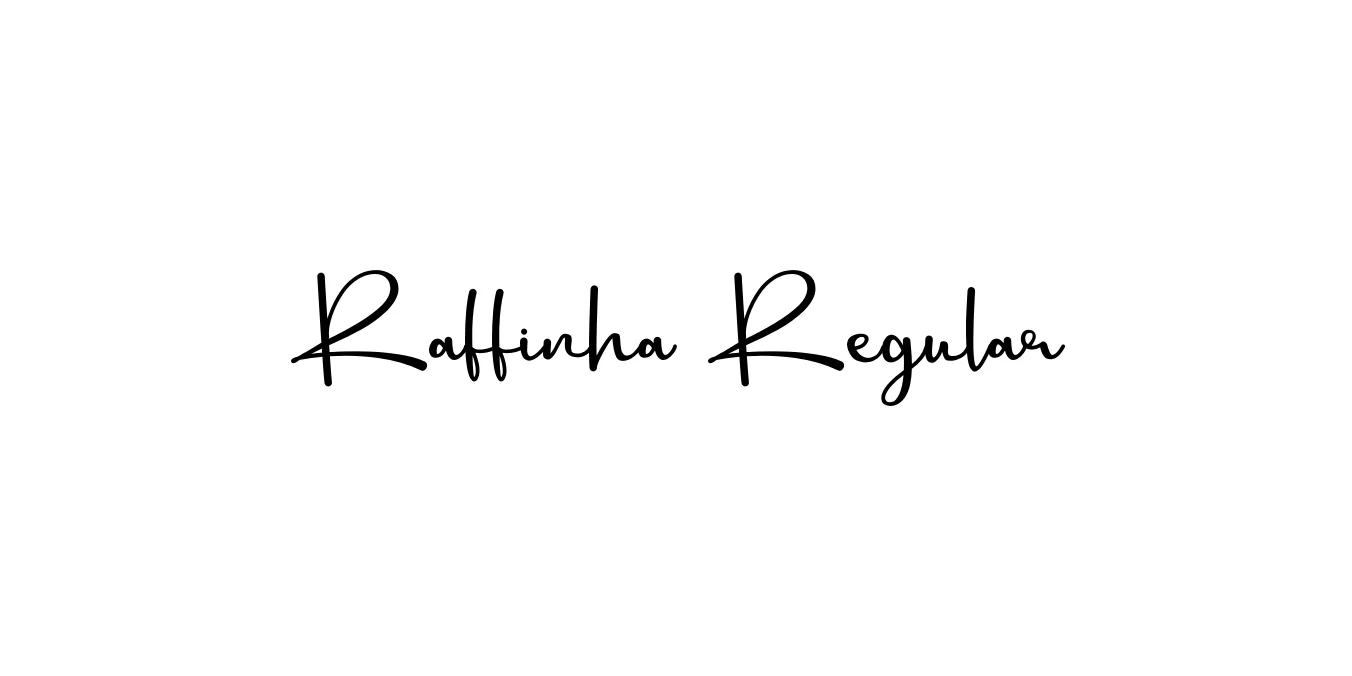
Raffinha Regular
Raffinha Regular is a sophisticated and fluid script typeface designed by the prolific type designer Mans Greback. Characterized by its elegant, sweeping strokes and organic flow, the font captures the essence of modern calligraphy. It was crafted to provide a sense of high-end craftsmanship and personal touch, making it a standout choice for projects that require a signature aesthetic or a humanistic feel.
The typeface features a delicate balance between casual handwriting and formal script, allowing it to remain highly legible while maintaining an artistic flair. Since its introduction, Raffinha Regular has been widely adopted by designers for luxury branding, wedding invitations, and editorial work. Its versatile nature ensures it performs well in both digital and print media, offering a timeless appeal that elevates the visual narrative of any design project.
Raffinha Regular Best Uses
Exquisite for invitations, menus, and place cards needing a touch of class.
Ideal for luxury fashion or beauty brands requiring a signature-style logo.
Perfect for overlaying quotes on photography to create a lifestyle aesthetic.
Adds a personalized feel to pull-quotes and decorative titles in magazines.